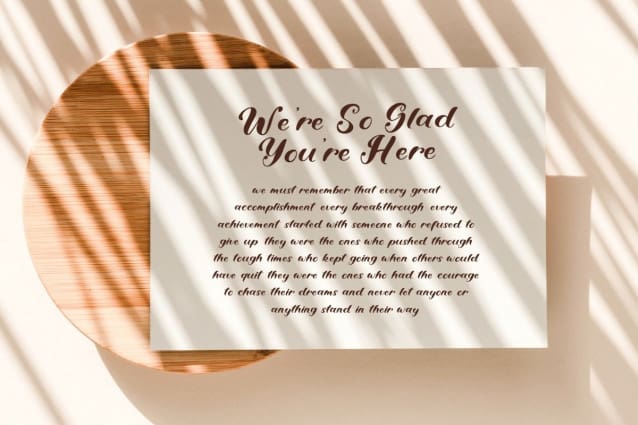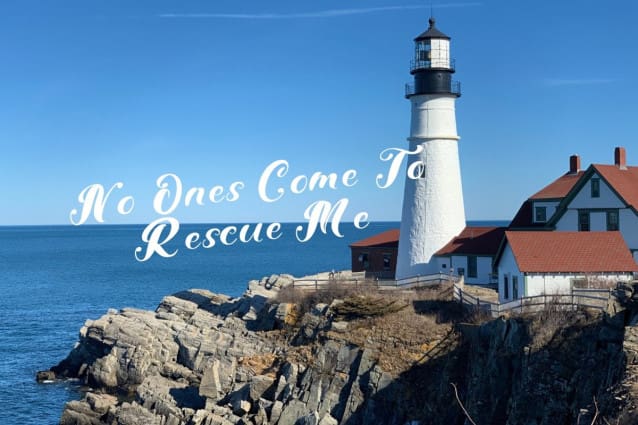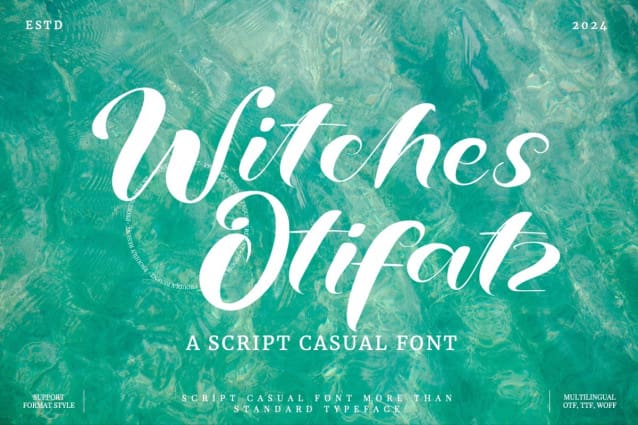
Witches Otifatz Font
Witches Otifatz Font is a calligraphy font that comes with exquisite changing characters, a kind of classic decorative copper script with a modern touch, designed with high details to bring out the elegance of the style.